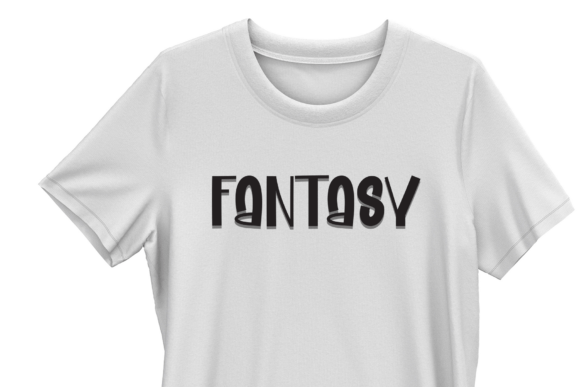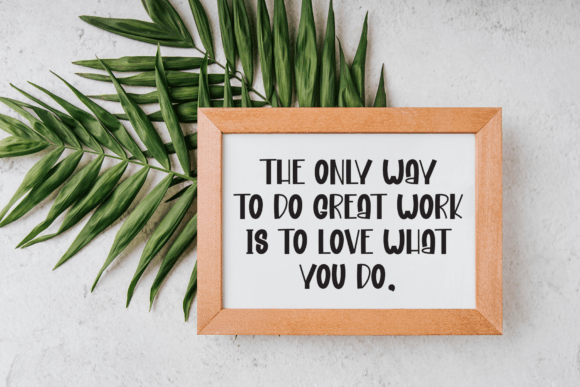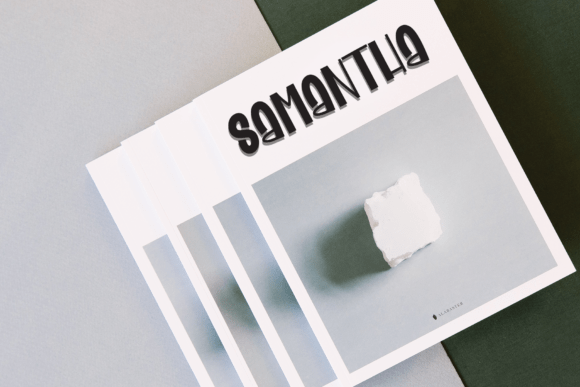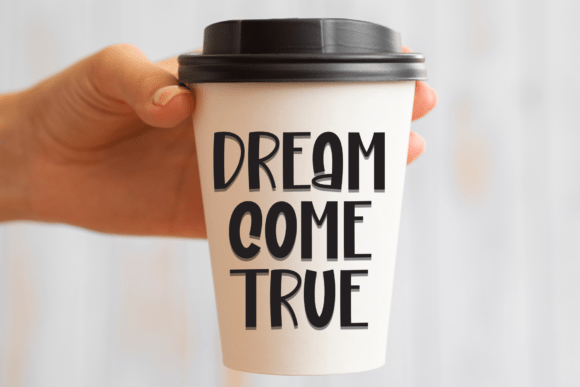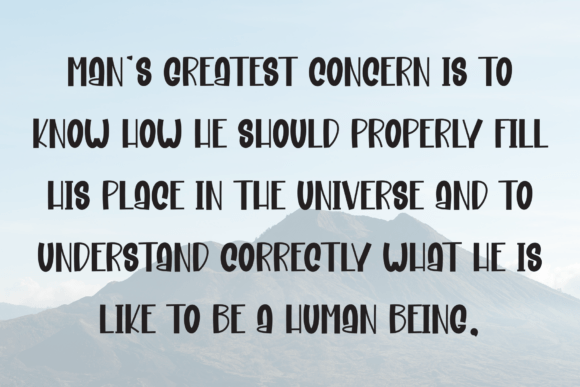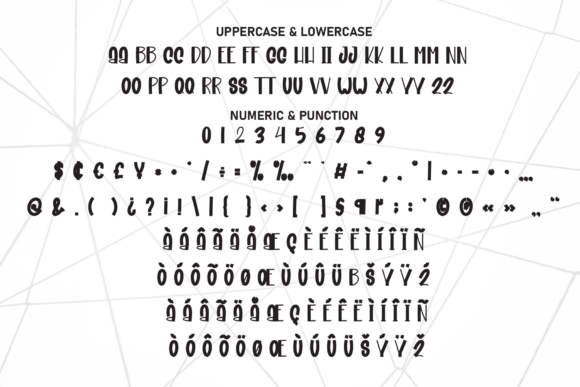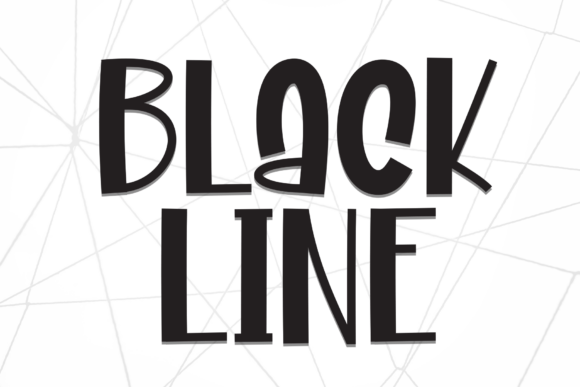
The Power of Black Line Font: Adding a Touch of Whimsy to Your Designs
I still remember the time I was working on a children’s book project, and I was struggling to find the perfect font that would bring the story to life. The client wanted something bold, playful, and eye-catching, but not too over-the-top. After hours of scouring through font libraries, I stumbled upon Black Line Font, and it was love at first sight! ✨
This bold, impactful display font has a fun, slightly hand-drawn aesthetic that immediately caught my attention. With its thick, solid shapes and playful variation in stroke width and letter placement, Black Line Font has a distinct, eye-catching personality that is perfect for children’s books, casual branding, signage, playful posters, school projects, and designs that require a strong, confident presence without sacrificing approachability and charm.
An Honest Review of Black Line Font
- ✨ Unique and playful aesthetic: Black Line Font has a one-of-a-kind look that will make your designs stand out from the crowd.
- ✅ Ease of use: This font is incredibly easy to read, even in large blocks of text, making it perfect for posters, signs, and other display materials.
- 💡 Versatility: Black Line Font works well in a variety of design contexts, from children’s books to casual branding and signage.
While Black Line Font is an amazing font, there are a few things to keep in mind: 🤔
- ⚠️ Limited use in formal contexts: Due to its playful nature, Black Line Font may not be the best choice for formal or professional designs, such as business reports or academic papers.
- ⚠️ Legibility at small sizes: While Black Line Font is easy to read in large sizes, it may become less legible at smaller sizes, so it’s best to use it in display contexts.
The Story Behind Black Line Font
Black Line Font was designed with the intention of creating a bold, playful font that would bring a touch of whimsy to designs. The designer, inspired by the world of children’s books and education, set out to create a font that would be both fun and confident. The result is a font that is both eye-catching and approachable, perfect for a wide range of design contexts.
Q: What is the best use for Black Line Font?
A: Black Line Font is perfect for children’s books, casual branding, signage, playful posters, school projects, and designs that require a strong, confident presence without sacrificing approachability and charm.
Q: Is Black Line Font easy to read?
A: Yes, Black Line Font is incredibly easy to read, even in large blocks of text, making it perfect for posters, signs, and other display materials.